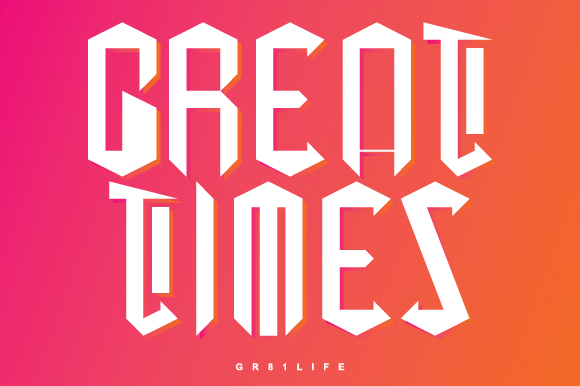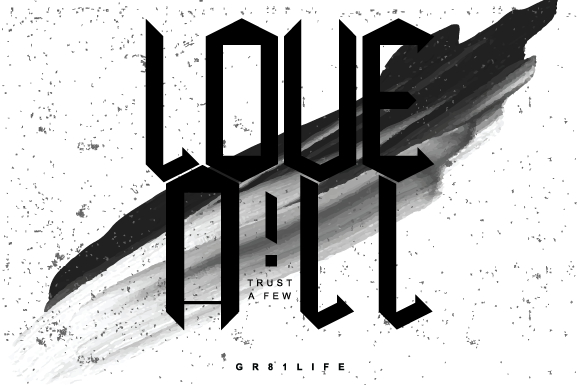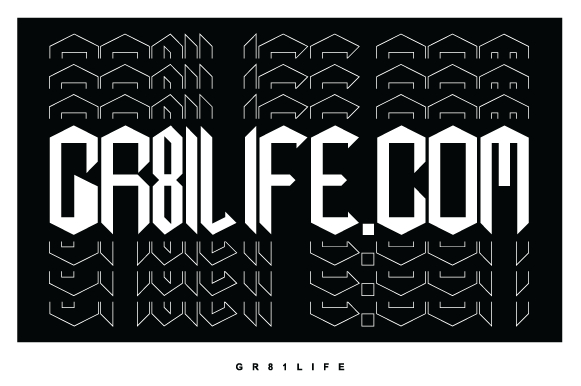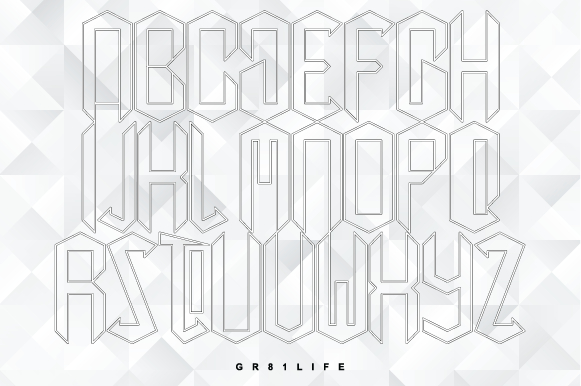
Great Times Font
About Great Times Font
Great Times is an incredibly unique and innovative blackletter font. It celebrates abstract shapes in all their eclectic beauty. This playfully
conceptual font will look truly outstanding in a wide range of contexts.